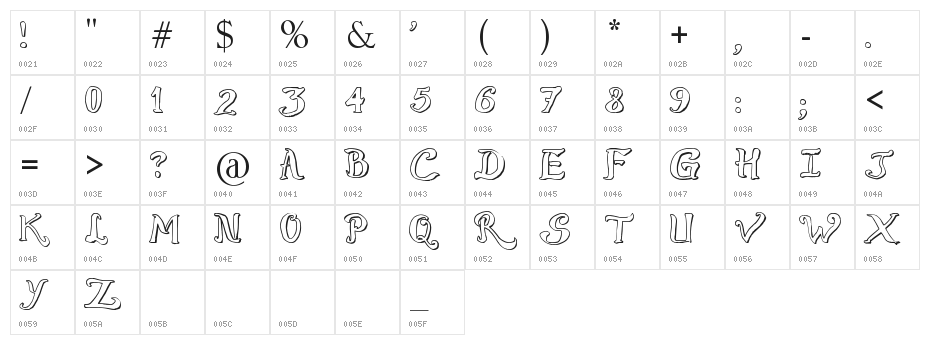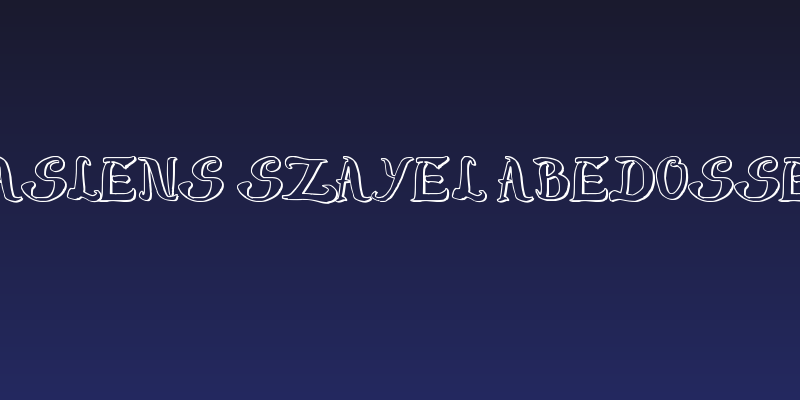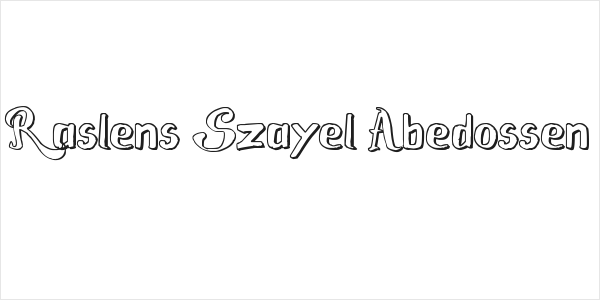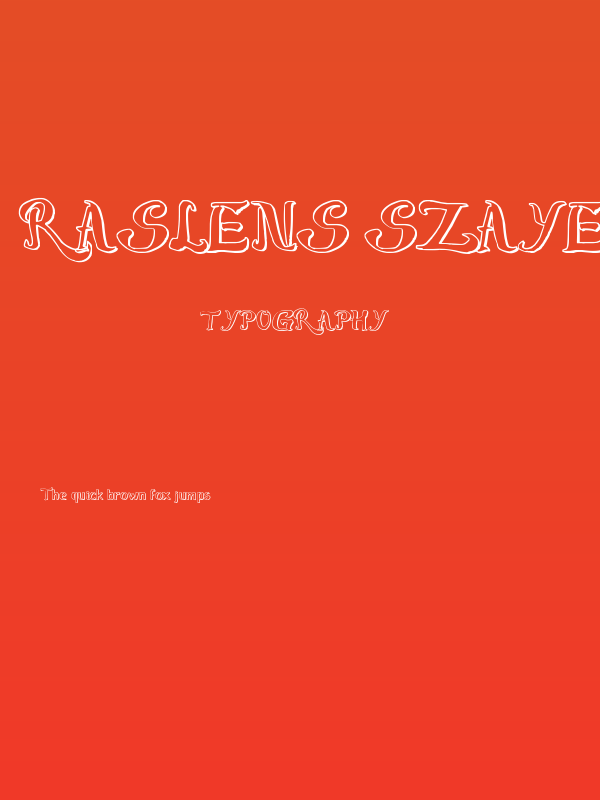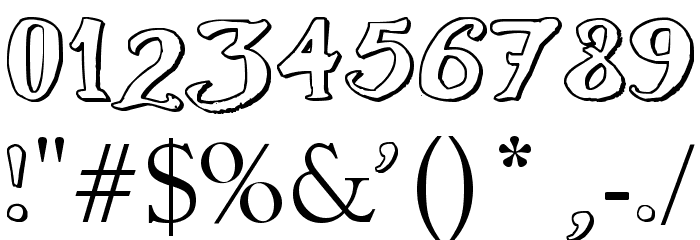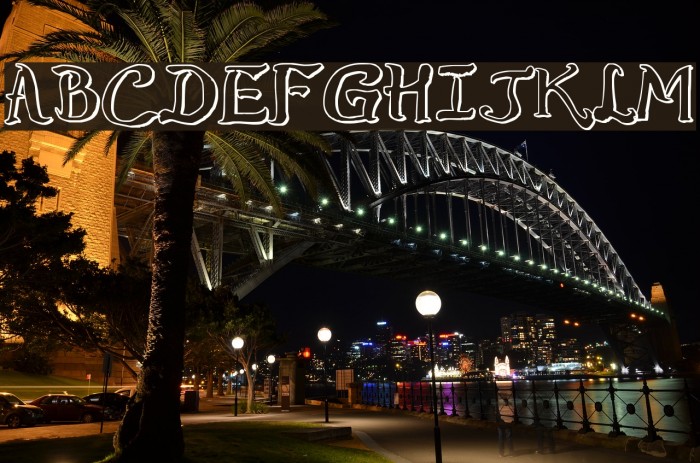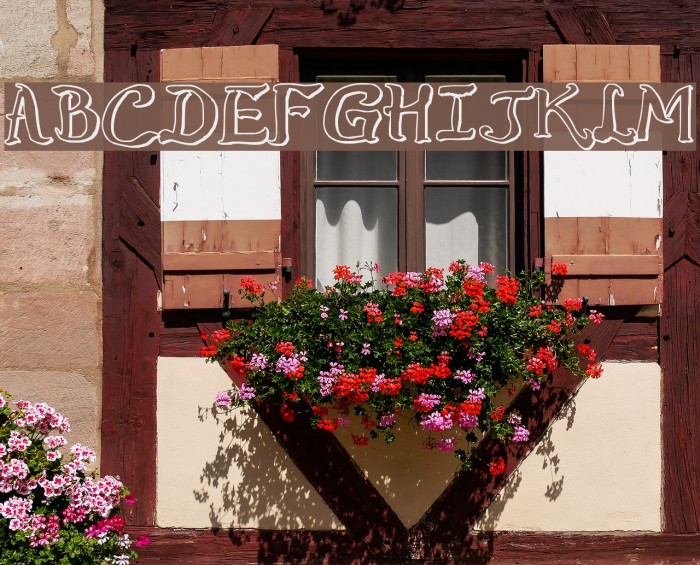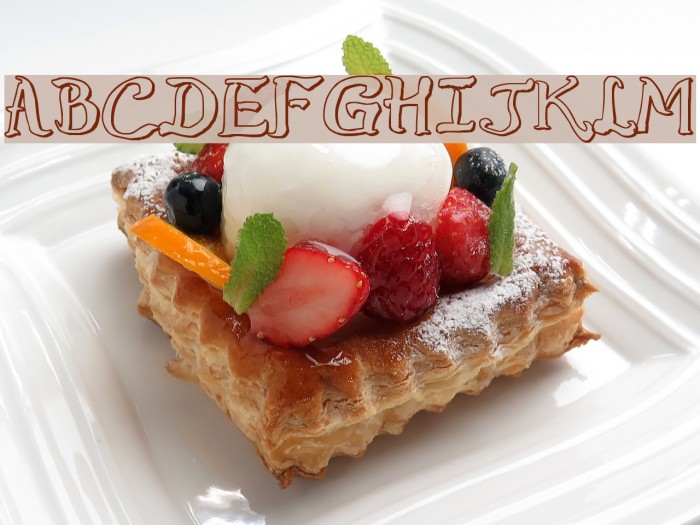
Raslens Szayel Abedossen Font
Raslens Szayel Abedossen Description
This font features a playful and bold design with a hand-drawn aesthetic. The uppercase letters have a whimsical, slightly uneven quality, giving them a unique character. The lowercase letters maintain this playful style, with rounded edges and a consistent stroke width. Numbers and special characters follow the same design principles, ensuring a cohesive look across all elements. The font's outline style adds an extra layer of depth, making it stand out in any design. Its artistic flair makes it suitable for creative projects that require a touch of personality.
| Proposed Projects | Ideal for children's books, playful branding, creative posters, and artistic invitations. |